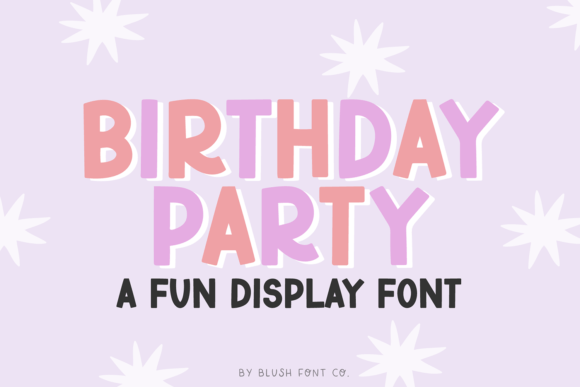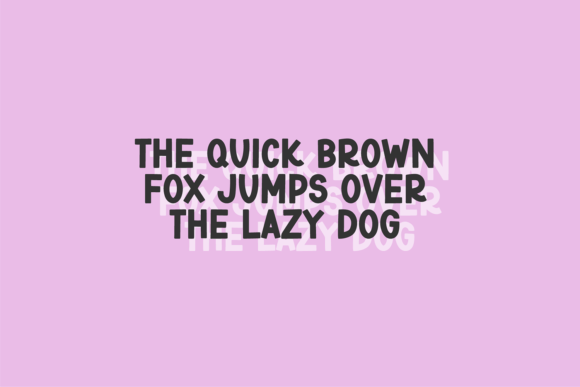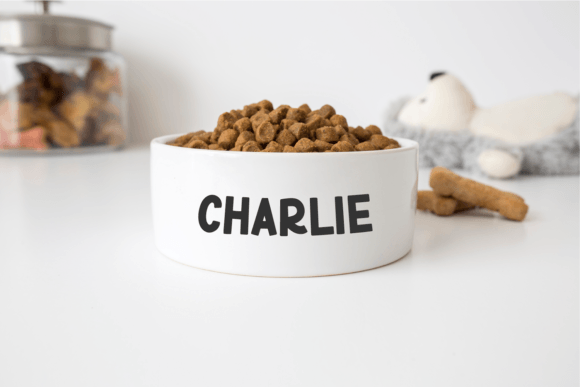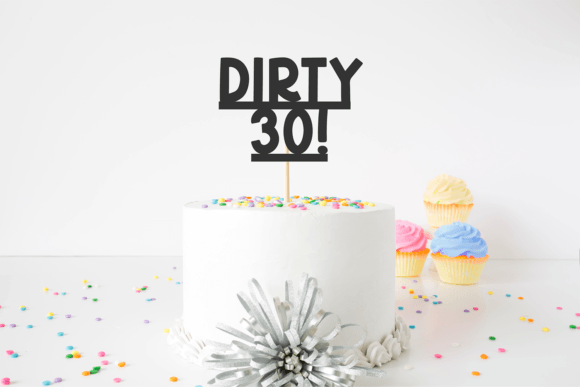
About the Birthday Party Font
Step up your design game with Birthday Party Font, a font that exudes confidence and style. “Birthday Party” is a fun display font.
This font is a trendy display font that is perfect for social media or crafty projects. Use it for branding, crafts for decor, invitations, and more! All caps glyphs, numbers, and basic punctuation marks.